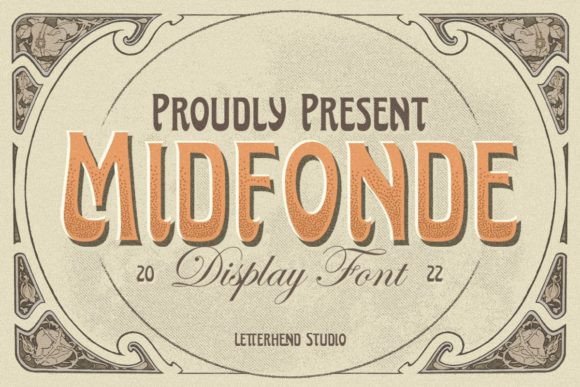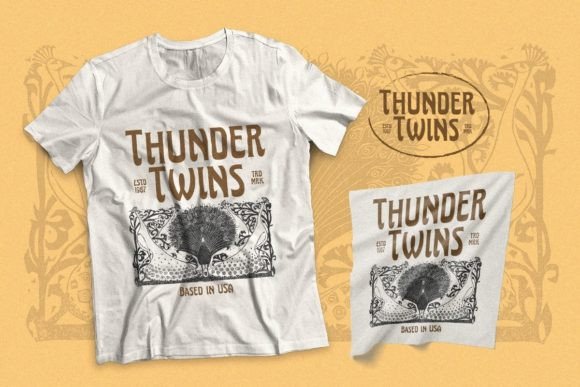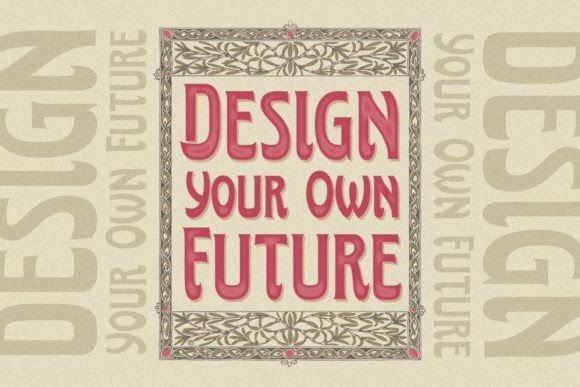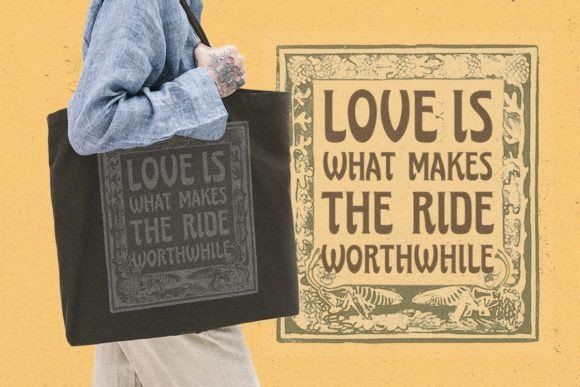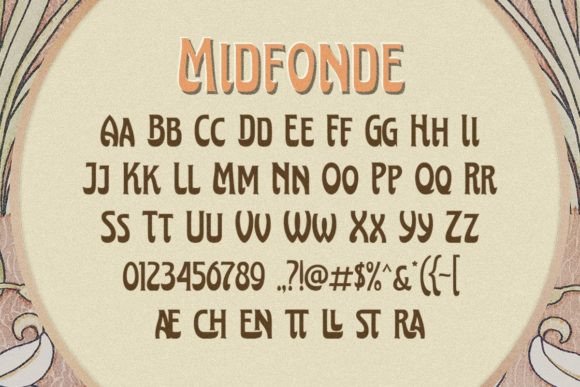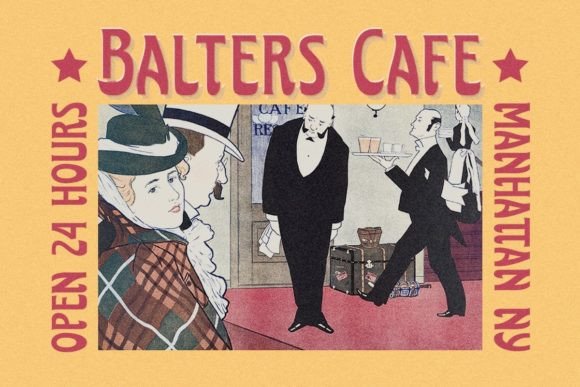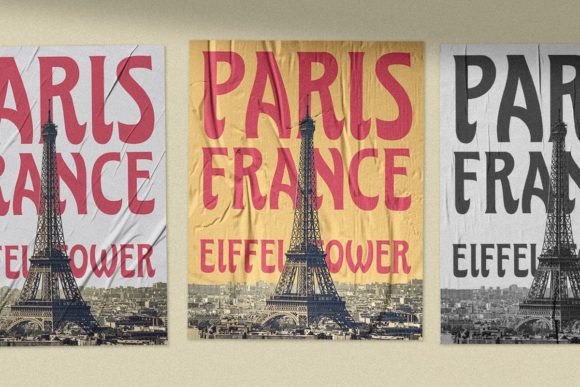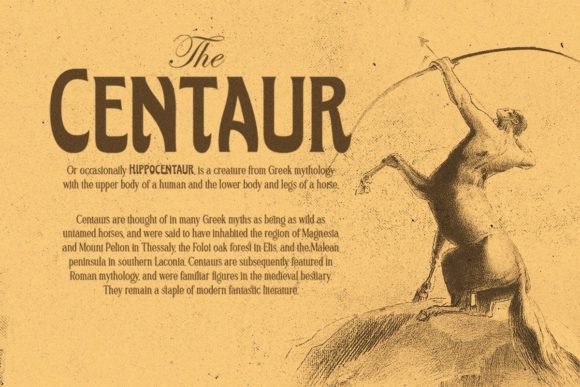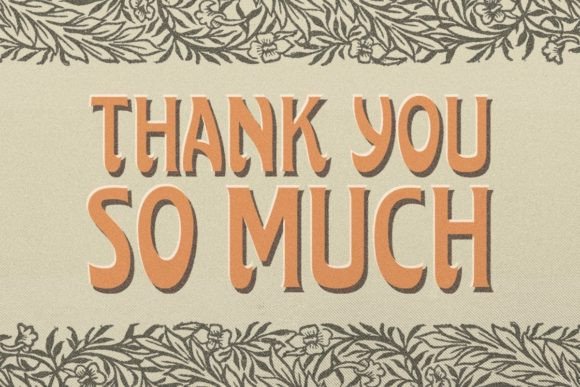
Midfonde
Midfonde: An Art Deco Inspired Slab Serif Typeface
Midfonde is a slab serif typeface inspired by the art deco style. This versatile font is perfect for logos, headlines, signage, and other formal applications such as invitations, labels, magazines, books, greeting and wedding cards, packaging, fashion, make-up, stationery, novels, and various types of advertising purposes.
Key Features of Midfonde
• Art Deco Inspiration: Offers a stylish and elegant look reminiscent of the 1920s and 1930s.
• Slab Serif Structure: Features distinctive serifs that add character and readability.
• Versatile Application: Ideal for both print and digital media projects.
• Formal Aesthetic: Suitable for a wide range of professional and creative uses.
Ideal Uses for Midfonde
Midfonde’s unique characteristics make it particularly well-suited for:
When incorporating Midfonde into your designs, consider these tips:
• Use for headlines or short blocks of text to showcase its art deco style.
• Utilize its formal aesthetic to create sophisticated and elegant designs.
Midfonde is an excellent choice for designers looking to add an art deco inspired slab serif font to their typographic toolkit. Its ability to bring elegance and style to various design projects makes it stand out in the world of typography. Whether you’re working on branding, creating layouts for magazines, or developing content that requires a touch of vintage sophistication, Midfonde offers the perfect blend of form and function.
Furthermore, Midfonde’s unique design allows it to shine in various contexts. From formal invitations to creative advertising materials, this font can elevate your projects with its distinctive style. Its elegant yet readable appearance works particularly well in designs that aim to evoke the glamour and sophistication of the art deco era.
In conclusion, Midfonde is a font that truly captures the essence of art deco design in modern typography. Its versatility makes it suitable for a wide range of applications, from formal documents to creative advertising. For those looking to add a touch of vintage elegance to their work, Midfonde can enhance themed creations with its distinctive style. It’s the perfect choice for designers seeking to make a sophisticated, stylish impact across a wide range of creative projects.